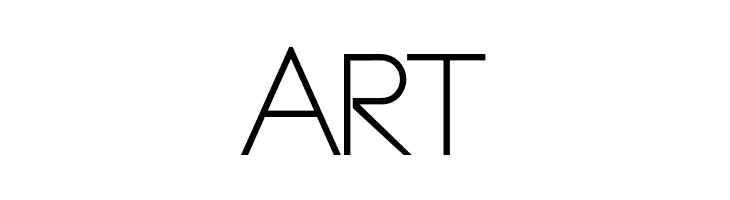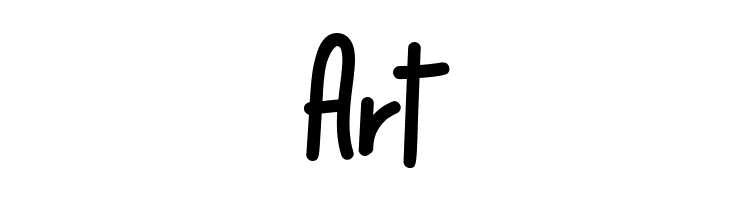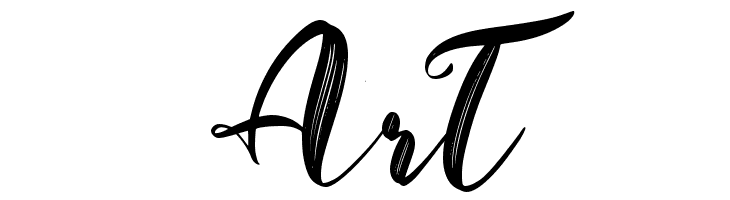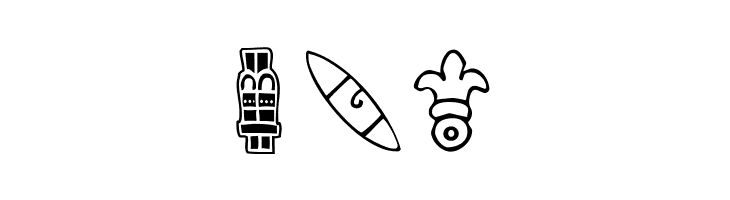
• Awesome Quote
A bold, playful handwritten font with a casual and quirky style.
• Axilia
A modern, geometric sans-serif font with clean lines and uniform stroke width.
• Ayella
An elegant, flowing script font with sophisticated loops and swashes.
• Ayesha
A playful and whimsical script font with bold, interconnected letters.
• Aztekbats
A decorative font inspired by Aztec motifs with intricate and stylized glyphs.
• Azzura Lineweight
A lively and dynamic script font with fluid, cursive strokes.
• Baby Panda
A playful, bold font with rounded, thick strokes and a whimsical, friendly appearance.
• Baby Snail
A bold, handwritten font with playful, rounded characters.
• Baby Sunshine - Personal Use
A bold, expressive script font with a lively, handwritten style.
• babybox